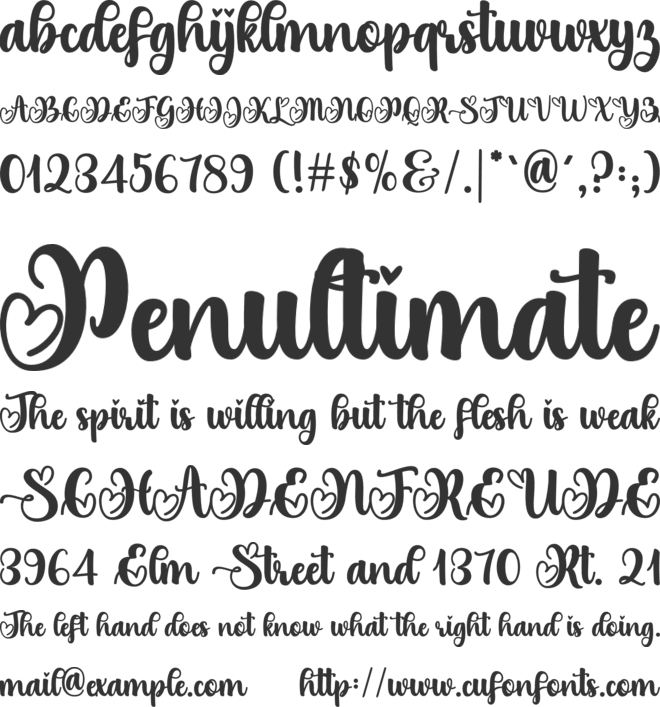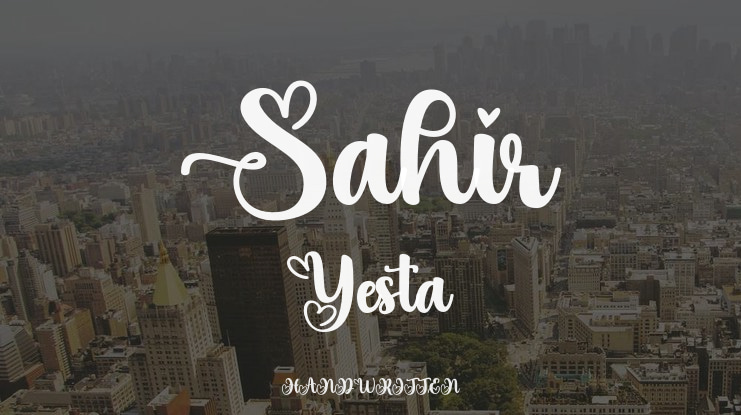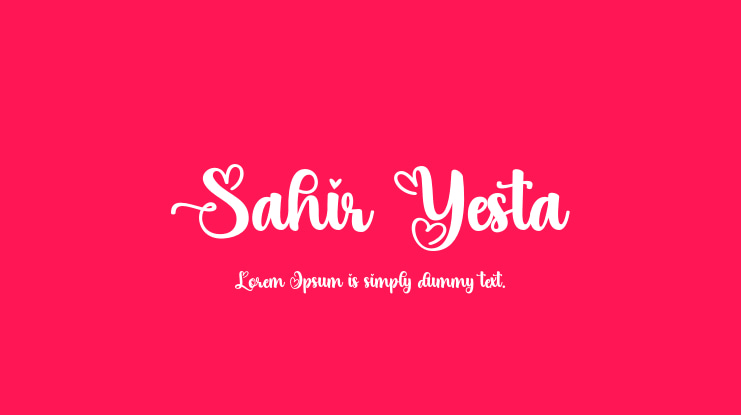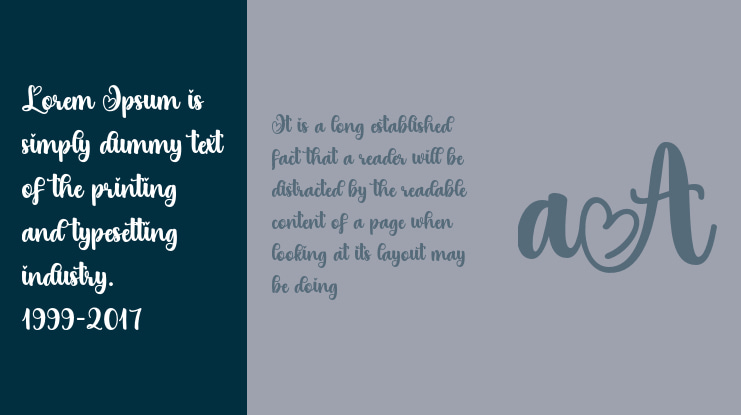
Sahir Yesta Font
Sahir Yesta is a charming script font created with precision and style, combining sophistication and allure. Ideal for bringing a customized feel to your projects, this font radiates a graceful elegance that elevates any design with its artistic and polished appearance.